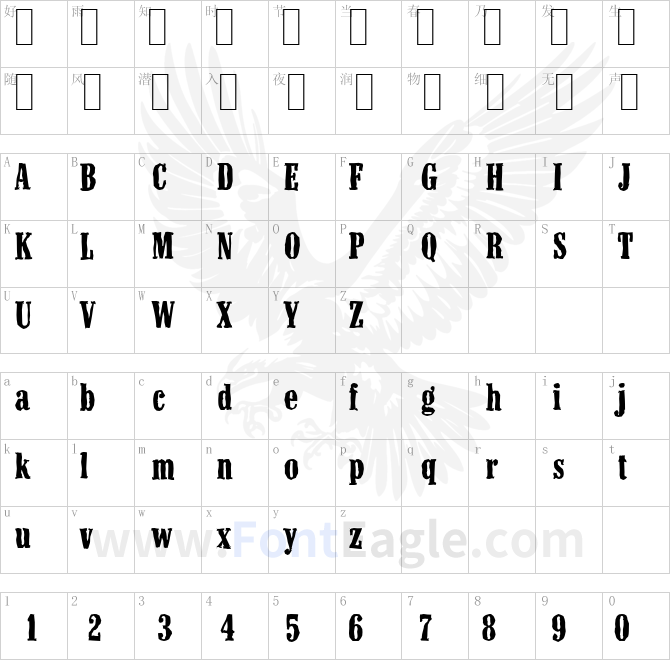
- Font name:ColonelAntique
- Font Subfamily ID:SoftMaker Software GmbH ColonelAntique-Bold
- Font Full Name:ColonelAntique-Bold
- Postscript:ColonelAntiqueBold